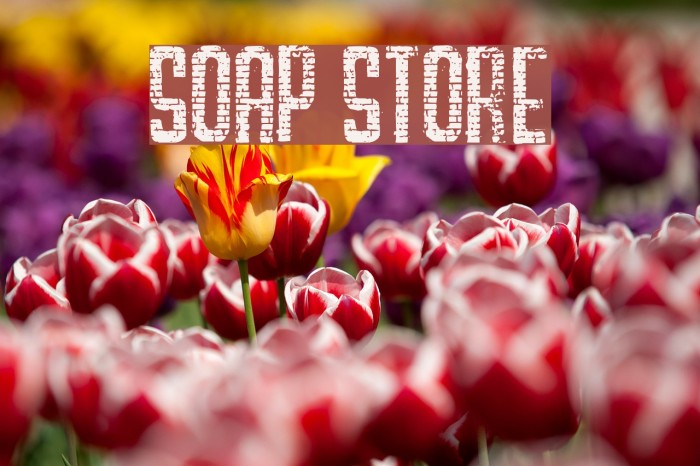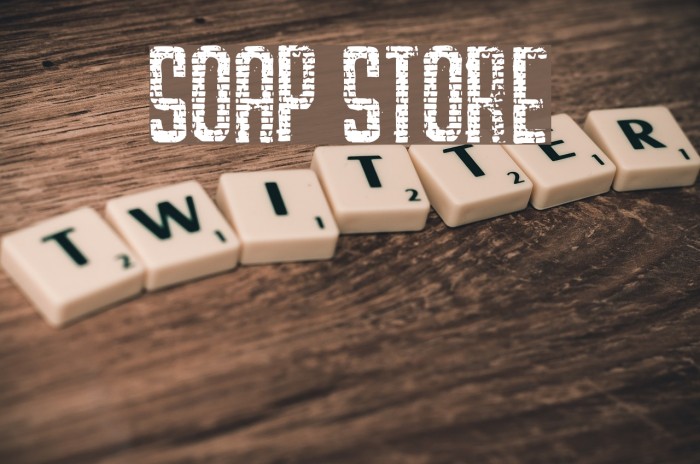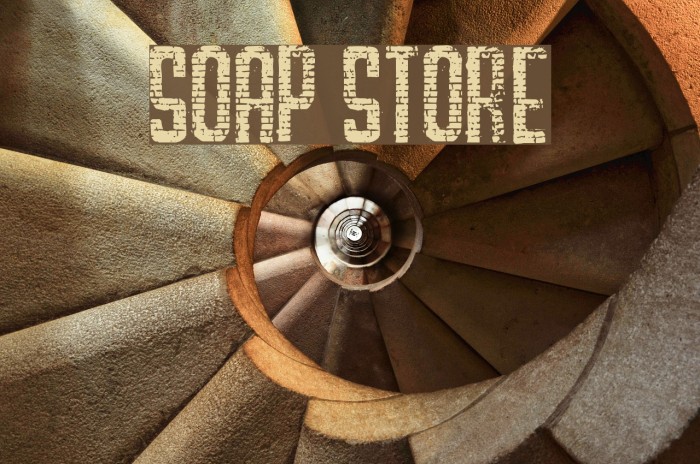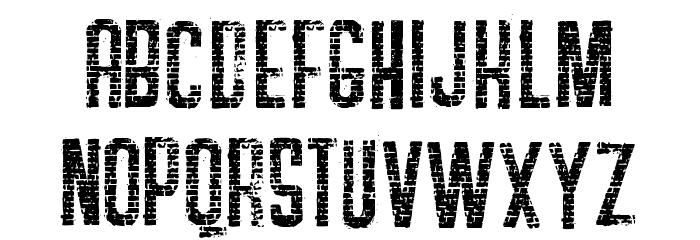
SOAP STORE Font
SOAP STORE Description
This font features a bold, distressed style with a textured appearance that gives it a rugged and vintage feel. The uppercase letters are prominently displayed with a consistent height, while the rough edges and uneven texture add a sense of authenticity and character. The font's design is reminiscent of old printing techniques, making it ideal for projects that require a touch of nostalgia or a gritty aesthetic. Its boldness ensures that it stands out, making it suitable for headlines or attention-grabbing text. The distressed effect is uniform across all characters, providing a cohesive look.
A bold, distressed font with a rugged, vintage texture from Uncategorized fonts.
- Proposed Projects: Ideal for vintage posters, branding, logos, and apparel designs that require a bold, gritty aesthetic.
- Overall Style: Vintage